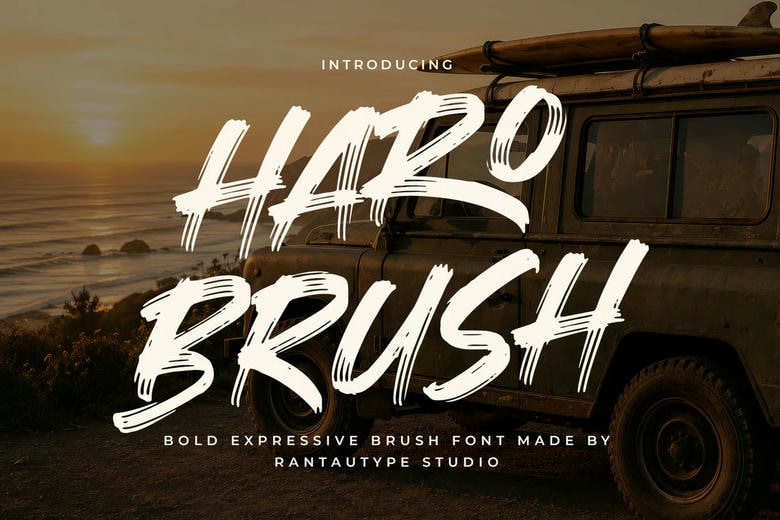
Haro Brush Font
Haro Brush is a bold and expressive brush font that brings a raw, energetic feel with its strong hand-painted strokes, uneven edges, and real brush texture. It is a great choice for creative projects, modern designs, and lifestyle branding.
Use it for logos, titles, covers, branding, invitations, magazines, social media posts, ads, printed quotes, packaging, product designs, labels, photography, watermarks, special events, or any project that needs a modern touch.